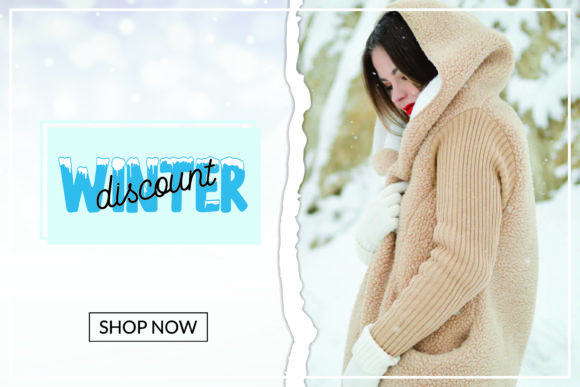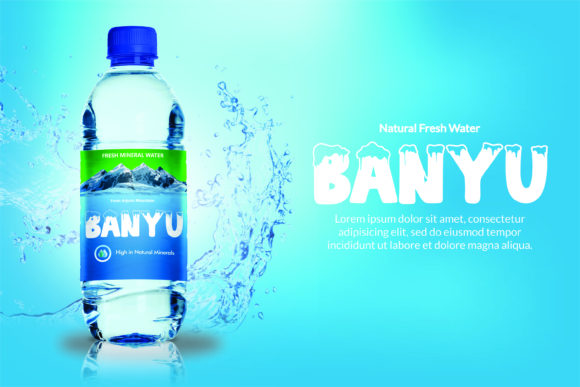
Snow Blue Font
Snow Blue is a bold display font, carefully handcrafted to become a true favorite. Its casual charm makes it appear wonderfully down-to-earth, readable and, ultimately, incredibly versatile. Use this gorgeous and unique font to bring any DIY project to life!